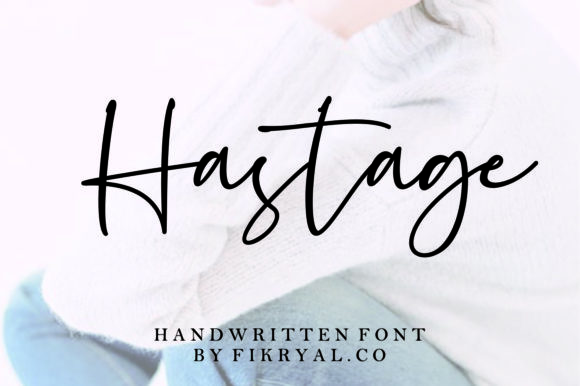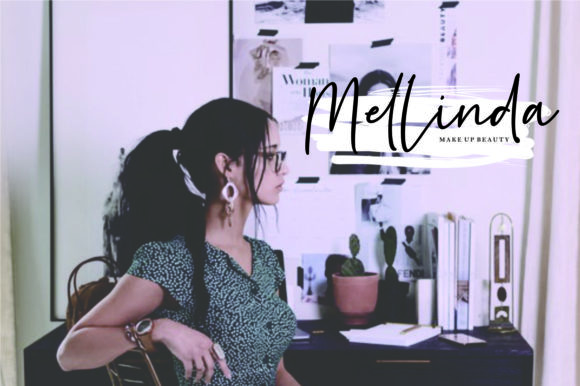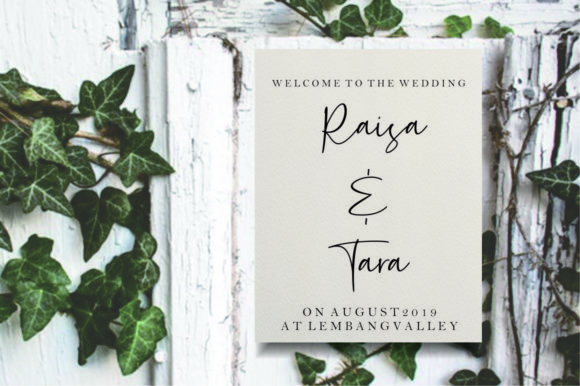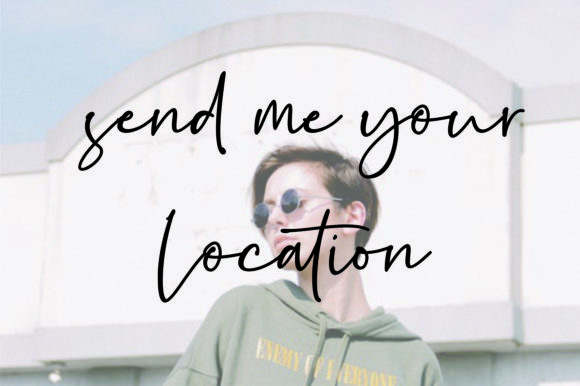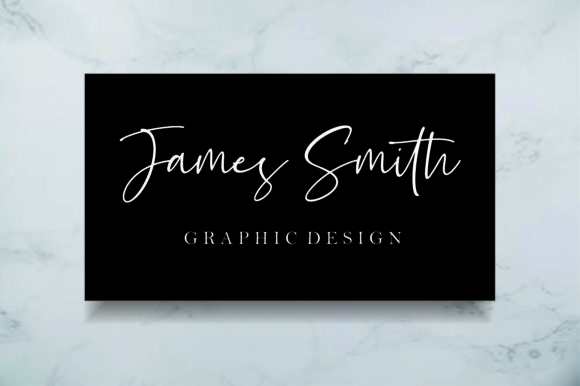
Hastage Font
About Hastage Font
Hastage is a beautiful, light and incredible handwritten font with a lot of authenticity. It will put a lovely spin on any design idea!